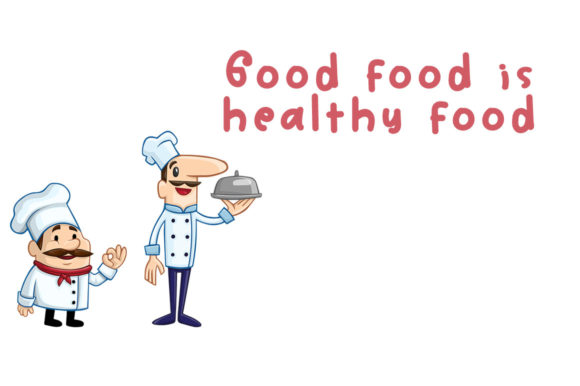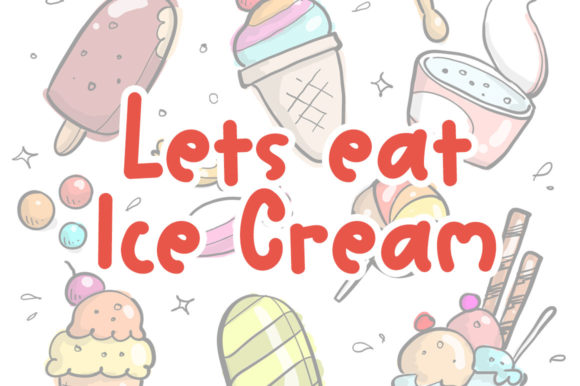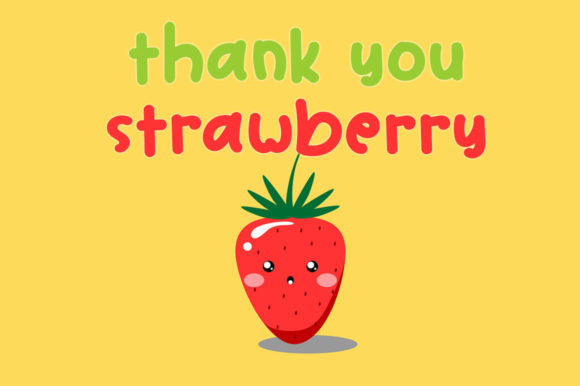
Introduction to Kitchen Restaurant Font
Kitchen Restaurant is a beautiful and sweet display font.
It is fresh, clean, and elegant This font will look amazing in a great number of projects, both formal and informal.
Kitchen Restaurant Font offers exceptional quality and versatility, making it a valuable addition to your design toolkit. Whether you’re creating for personal projects or commercial use, Kitchen Restaurant Font delivers professional results.